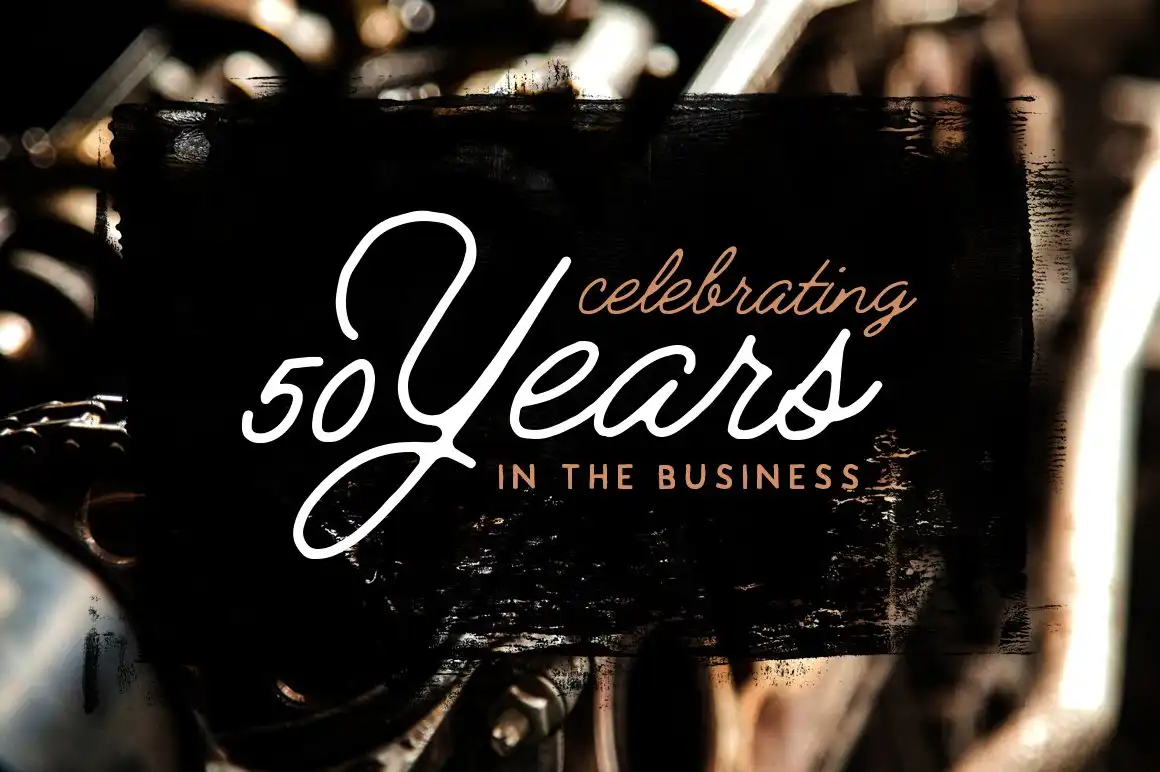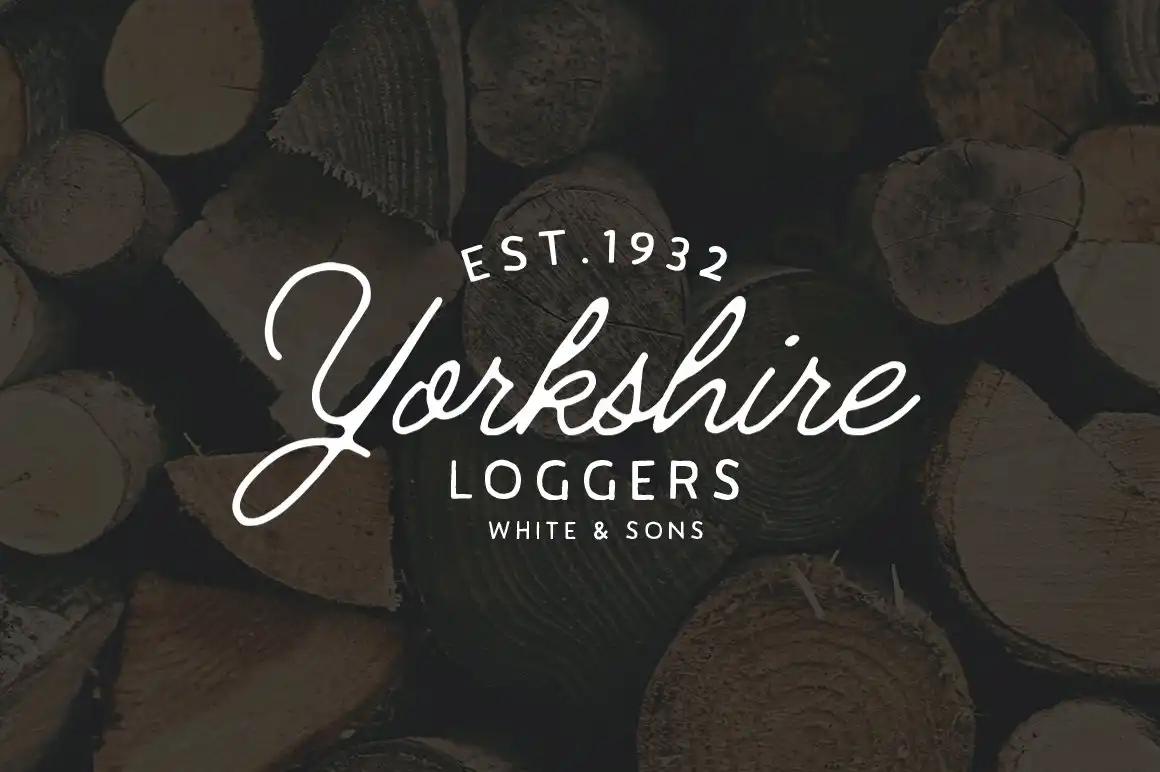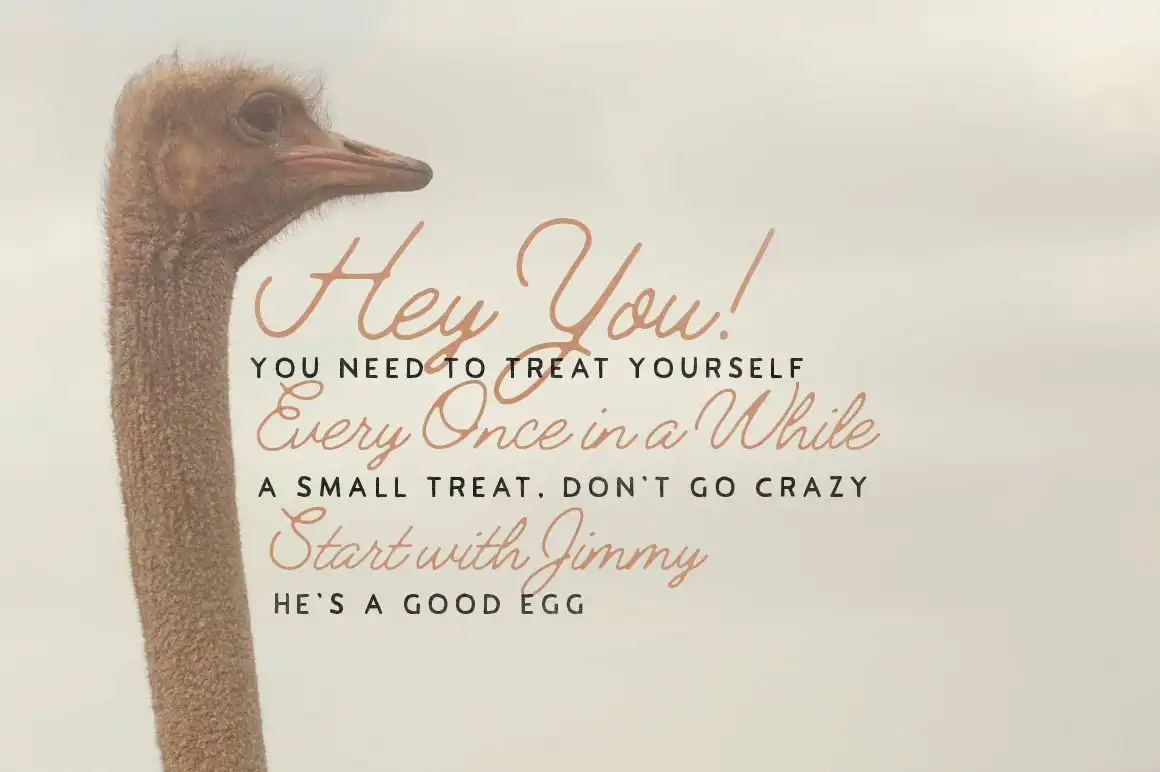
The Jimmy Font Duo includes five unique fonts, showcasing a handcrafted script font alongside a complementary sans serif. The script comes in three weights (Light, Regular, and Bold), while the sans serif offers both Regular and Bold options. Whether you’re designing a vintage logo or creating modern graphics, this versatile font duo has you covered! 🖌️✨
- Jimmy Script Font Family: Light, Regular, and Bold weights provide flexibility for all your design needs.
- Jimmy Sans Font Family: All capitals in Regular and Bold to add a clean, modern touch.
- Multilingual Support: Perfect for global projects and diverse audiences.
- 5 Font Styles (Jimmy Script & Jimmy Sans)
This font duo is an ideal choice for graphic designers, branding experts, and anyone looking to add a touch of vintage flair to their projects! Whether you’re creating invitations, logos, or social media graphics, the Jimmy Font brings a delightful charm to any design. 💌🎉